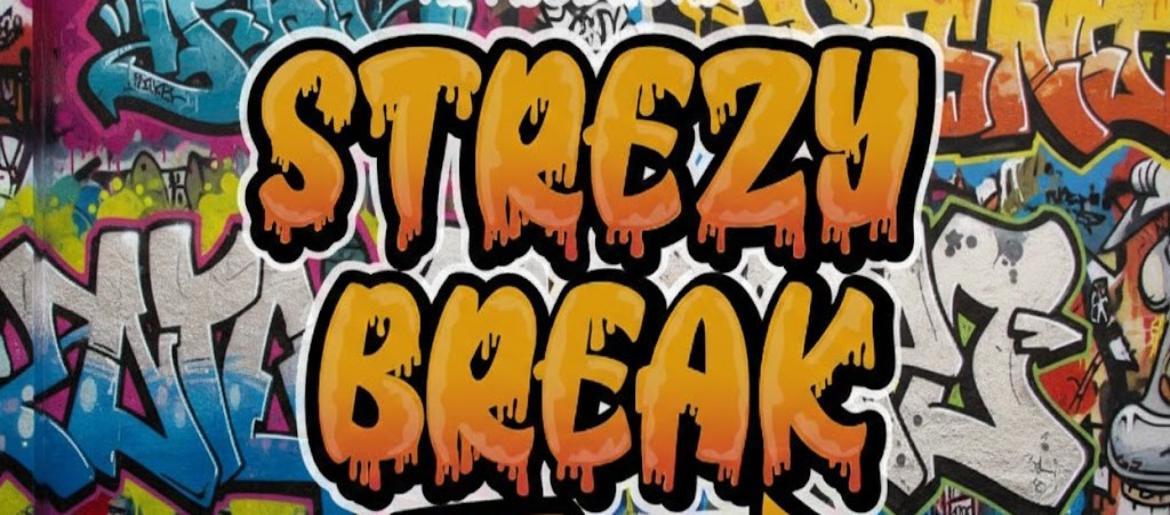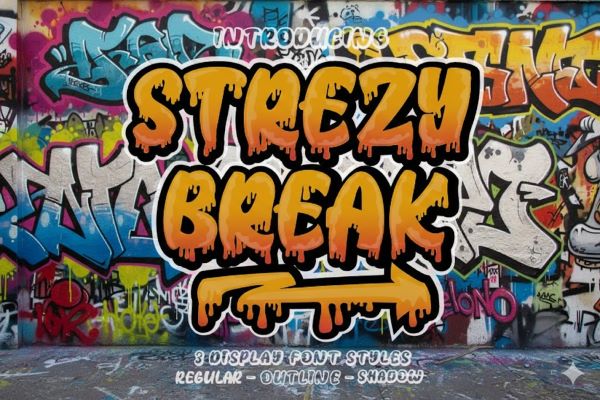
Strezy Break Font
Strezy Break Font is a dynamic graffiti-style typeface featuring broken strokes and bold urban character. Its raw, expressive design makes it perfect for street art visuals, posters, logos, apparel, and projects that demand an energetic, rebellious look.
➤ Font Name: Strezy Break
➤ Designer: Rvandtype Studio
➤ Style: Graffiti